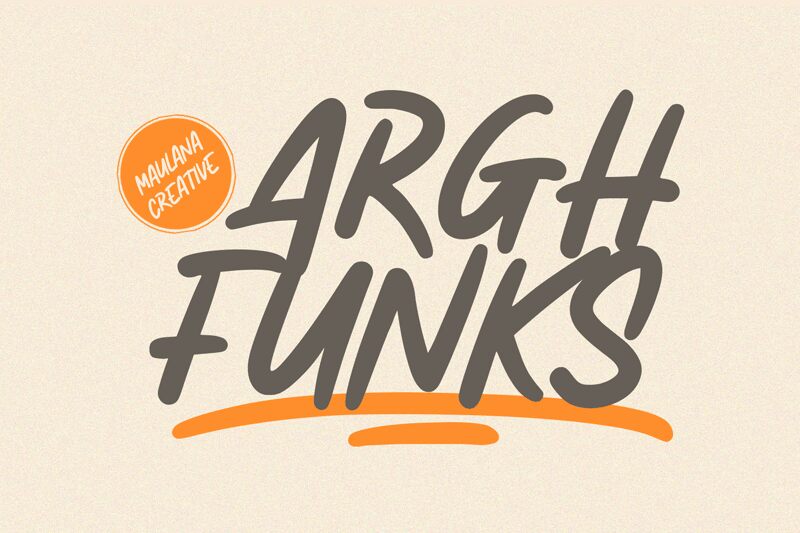
Arghfunks Free Regular
Arghfunks, a casual handwritten font by Maulana Creative, adds a playful touch to any project. With its marker-style design, this font exudes a laid-back vibe perfect for DIY tutorials, scrapbooking projects, and children's book illustrations. Its organic flow and unique charm make it an ideal choice for greeting cards, invitations, and personal blogs. Let Arghfunks bring out your creativity and infuse your designs with a whimsical flair that will captivate your audience. Embrace the fun-loving spirit of Arghfunks and watch your projects come to life!